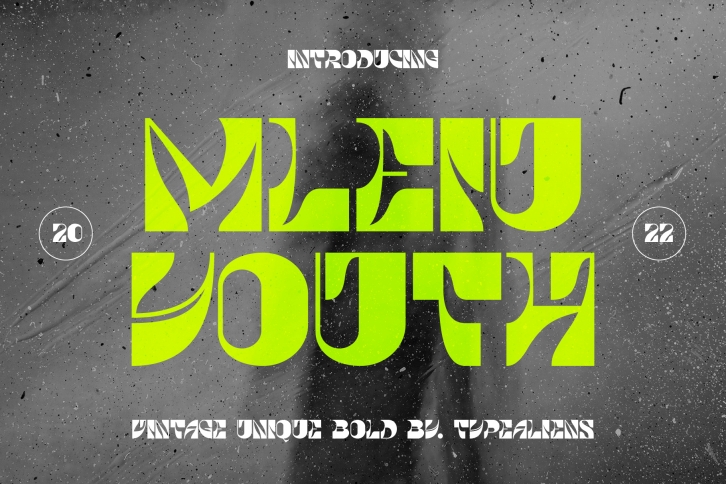
Mleiu Youth is a display font whose base is a stiff serif bold blended with a psychedelic style. With the characteristics of a snake stroke, this font can be used for modern or vintage designs and is also suitable for magazine headlines or music events, and other events.